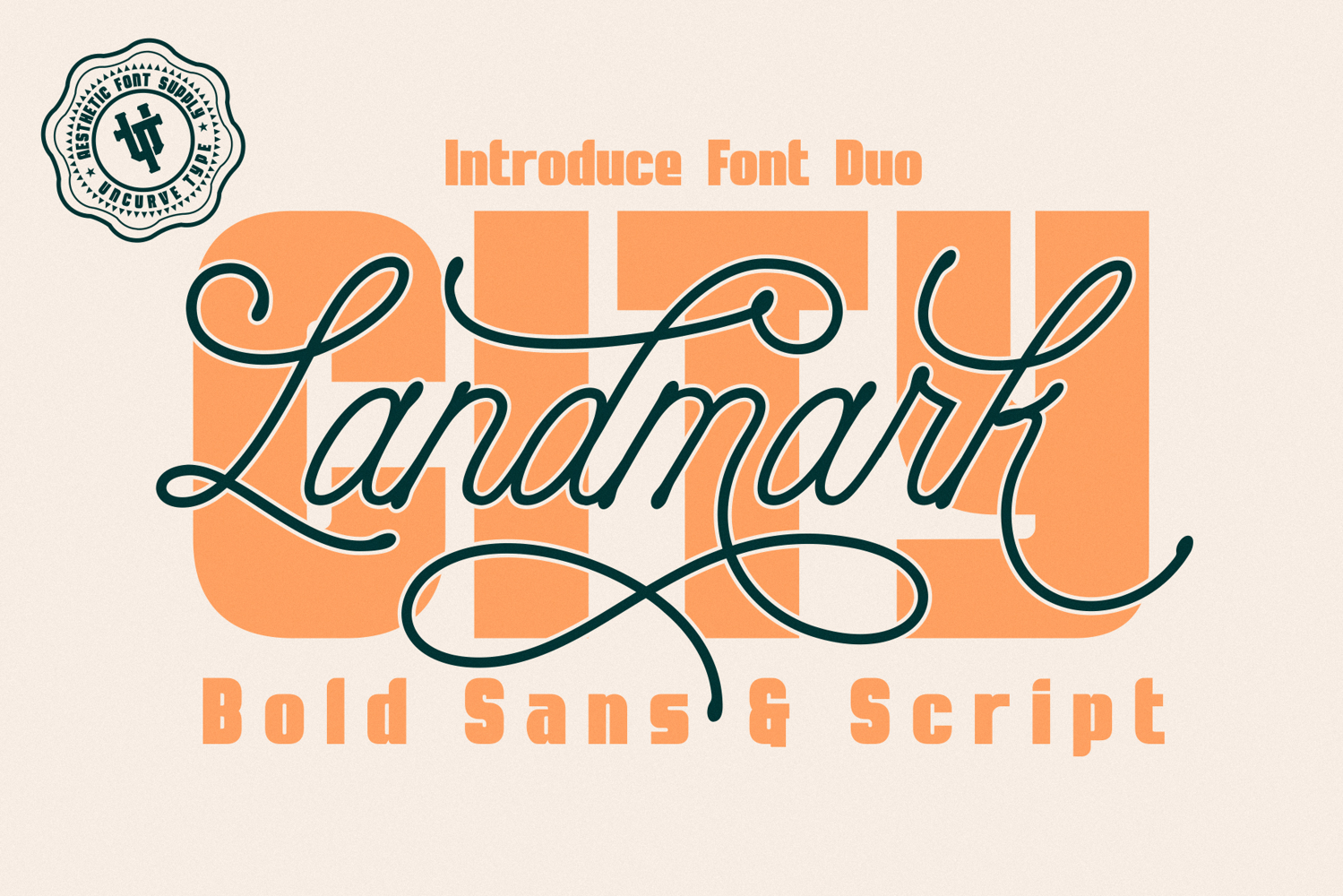
City Landmark Font Duo
City Landmark is a bold and stylish font duo featuring a strong sans serif paired with a smooth script font. Inspired by classic retro and vintage designs like old postcards, signage, and greeting cards, this font brings nostalgic charm with a modern twist.
Perfectly suited for retro and vintage design, logos, packaging, posters, postcards, apparel, social media graphics, cafe signage, invitations, music gig promos, movie titles, and more,.
City Landmark makes it easy to create standout designs. The script style includes a variety of alternates, ideal for custom lettering and logo work, while the sans style adds solid contrast and boldness.
This combination is perfect for achieving an authentic retro aesthetic in all your creative projec